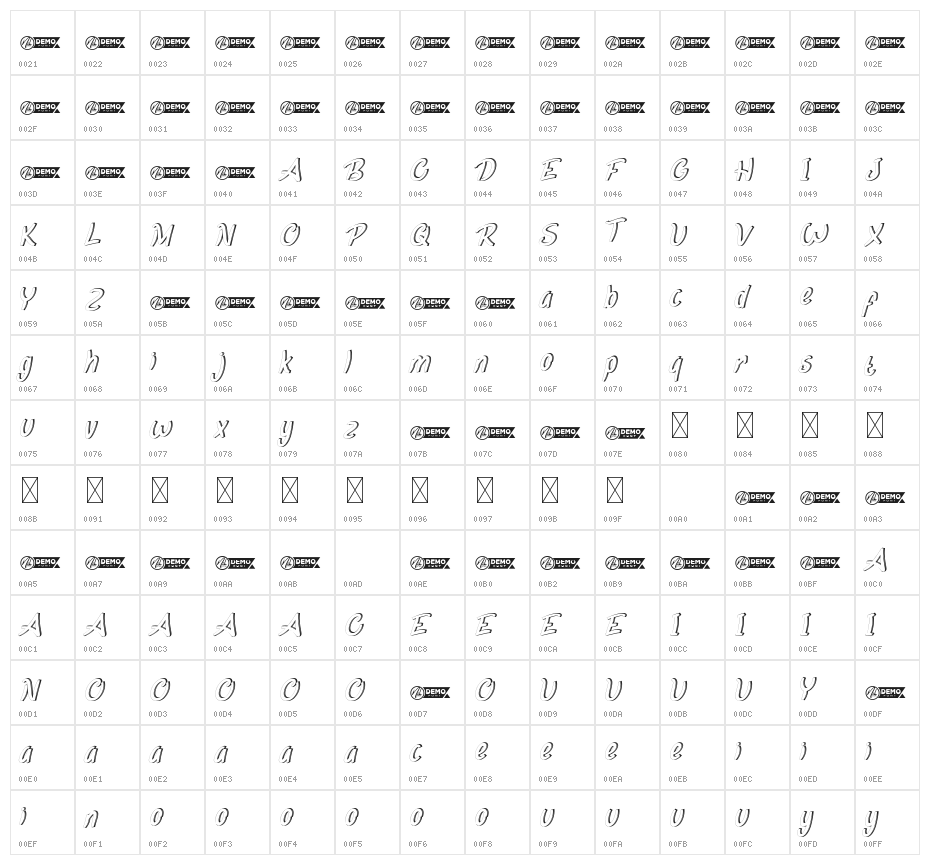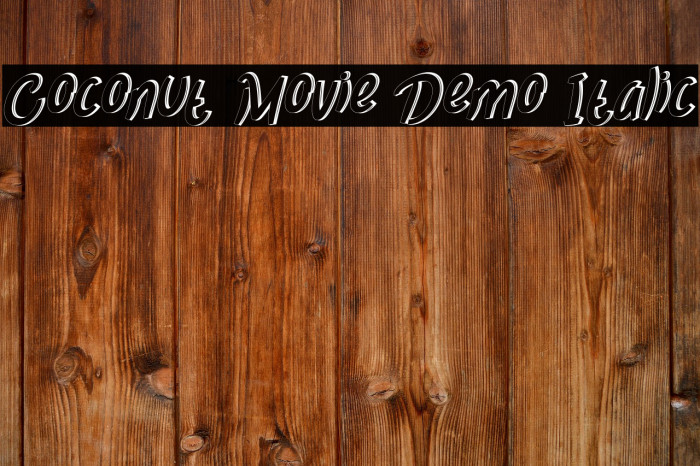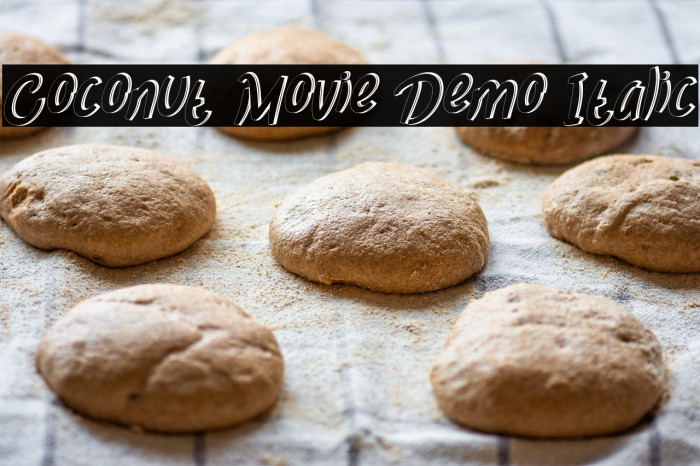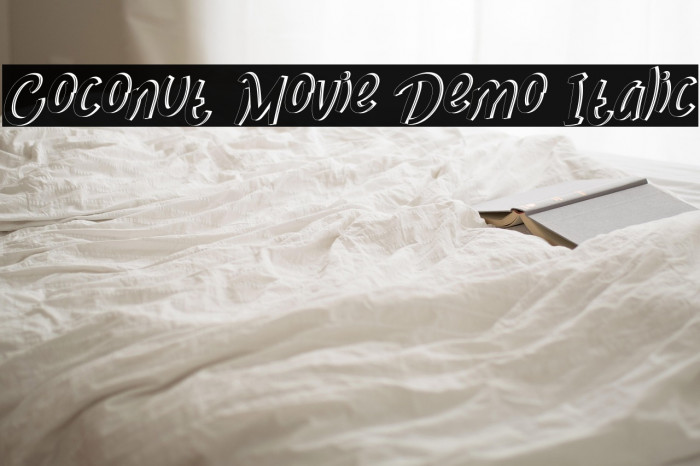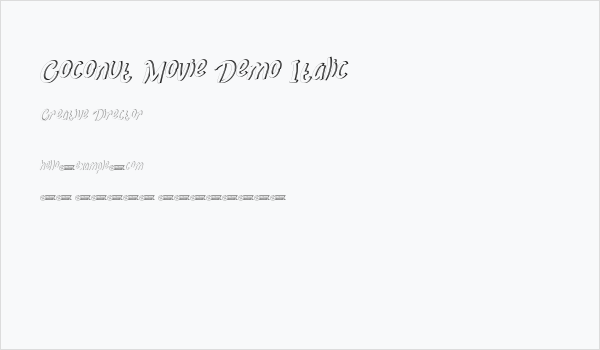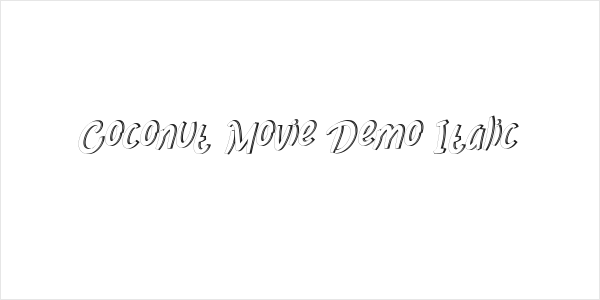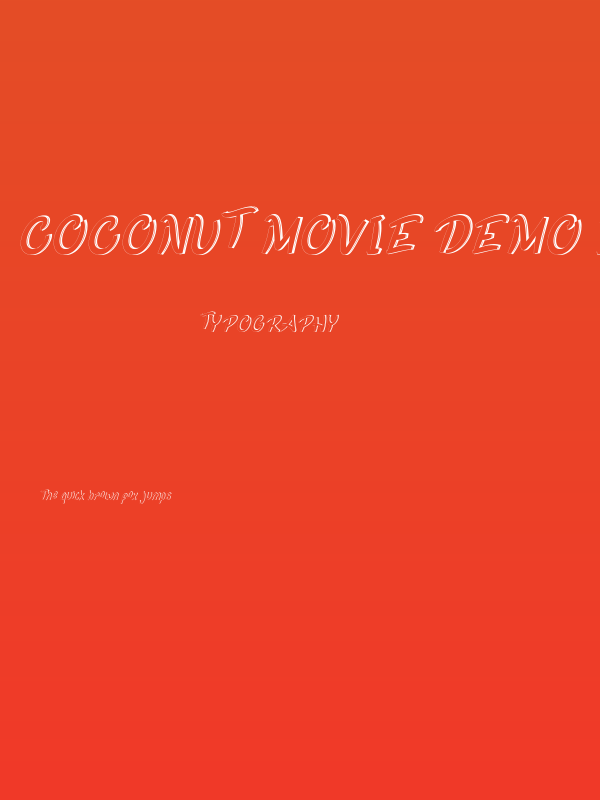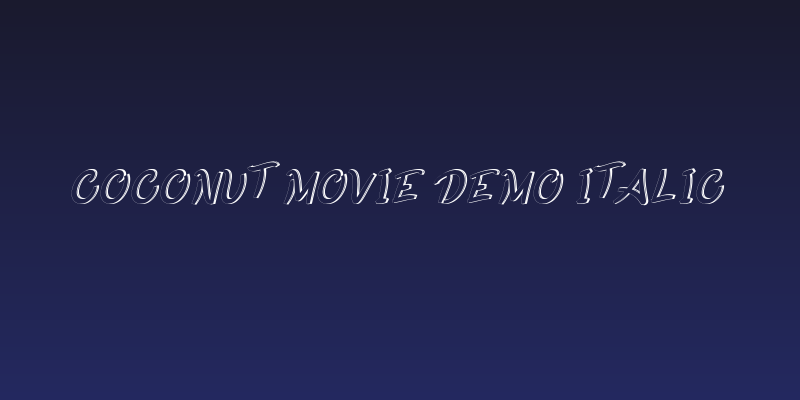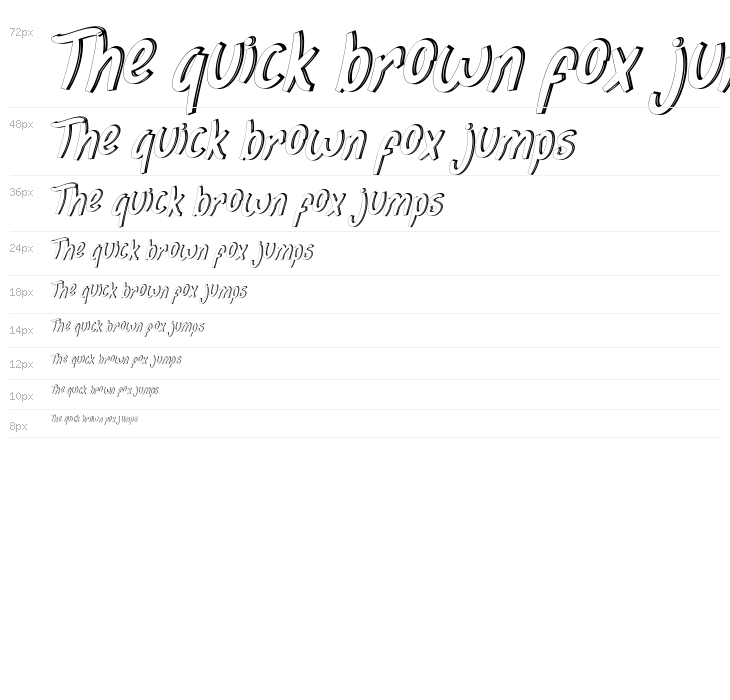
Coconut Movie Demo Italic Font
Coconut Movie Demo Italic Description
This font features a dynamic and playful style with a distinct italic slant, giving it a sense of movement and energy. The characters are bold with a slight shadow effect, enhancing their three-dimensional appearance. The strokes are smooth and fluid, with a consistent thickness that maintains readability while adding a touch of flair. The uppercase letters are particularly striking, with unique curves and angles that make them stand out. The lowercase letters complement the uppercase with a similar style, ensuring a cohesive look. This font is ideal for projects that require a lively and engaging typeface.
| Proposed Projects | Ideal for movie posters, event flyers, branding, and any project needing a lively and engaging typeface. |